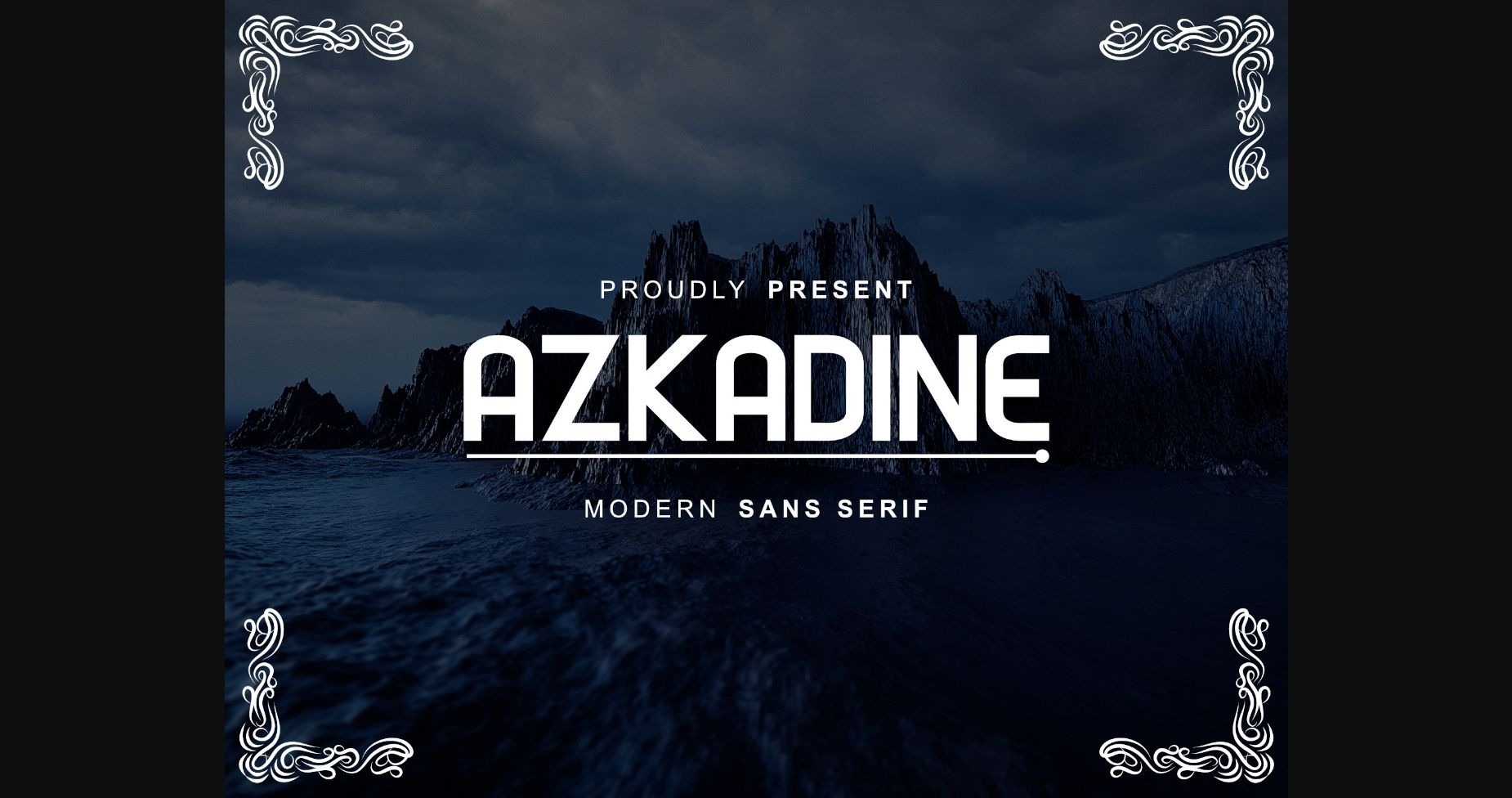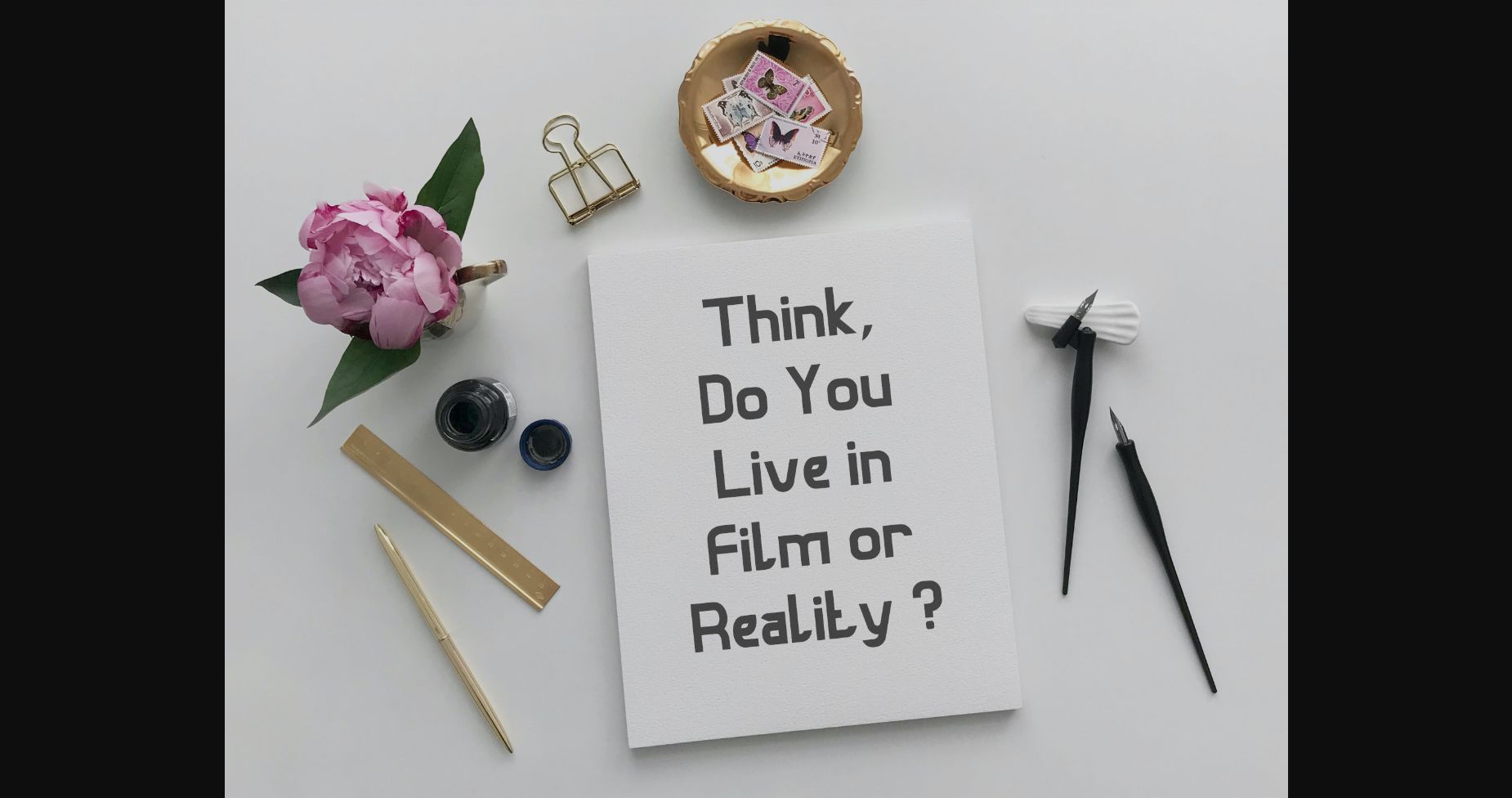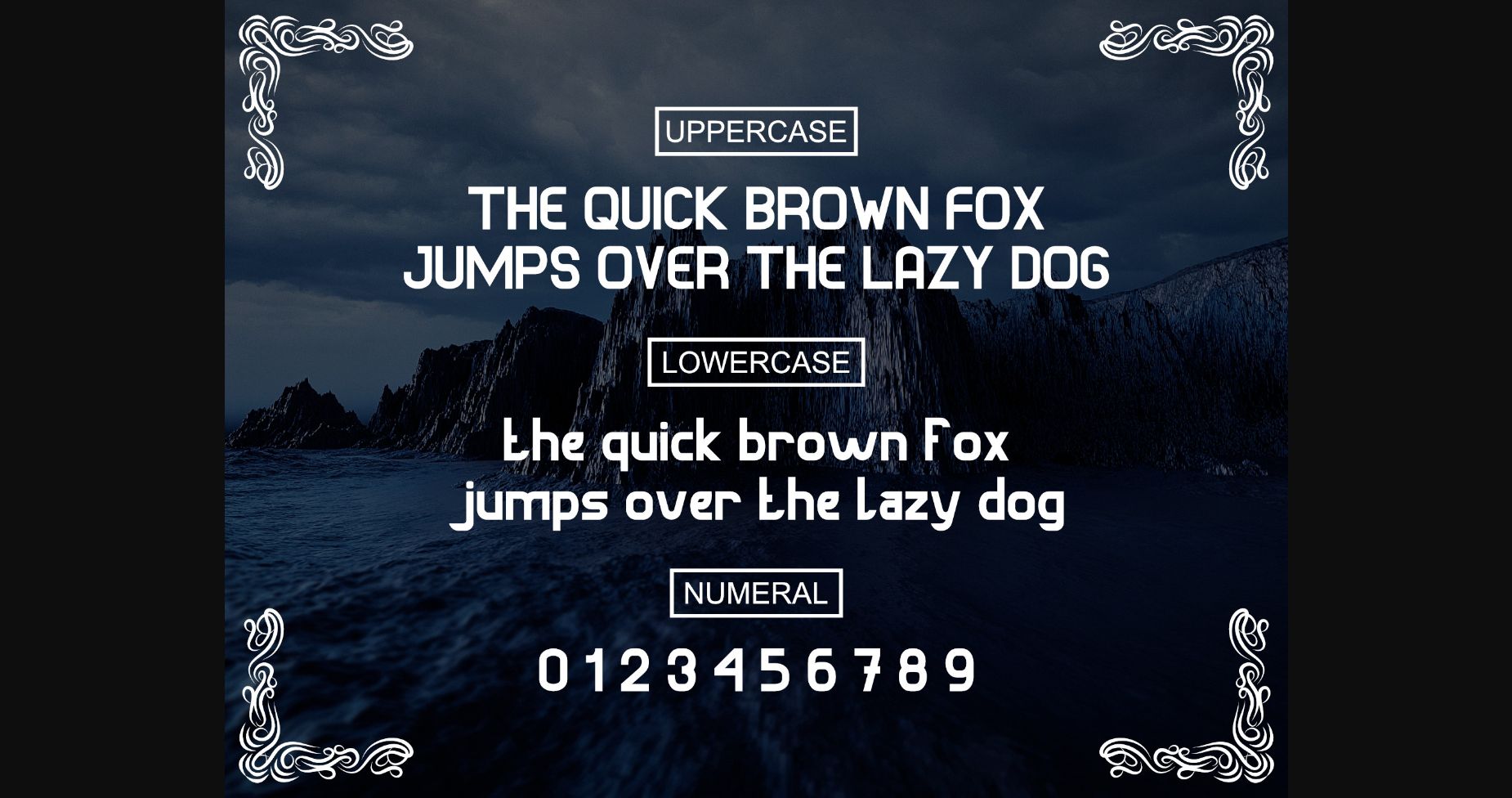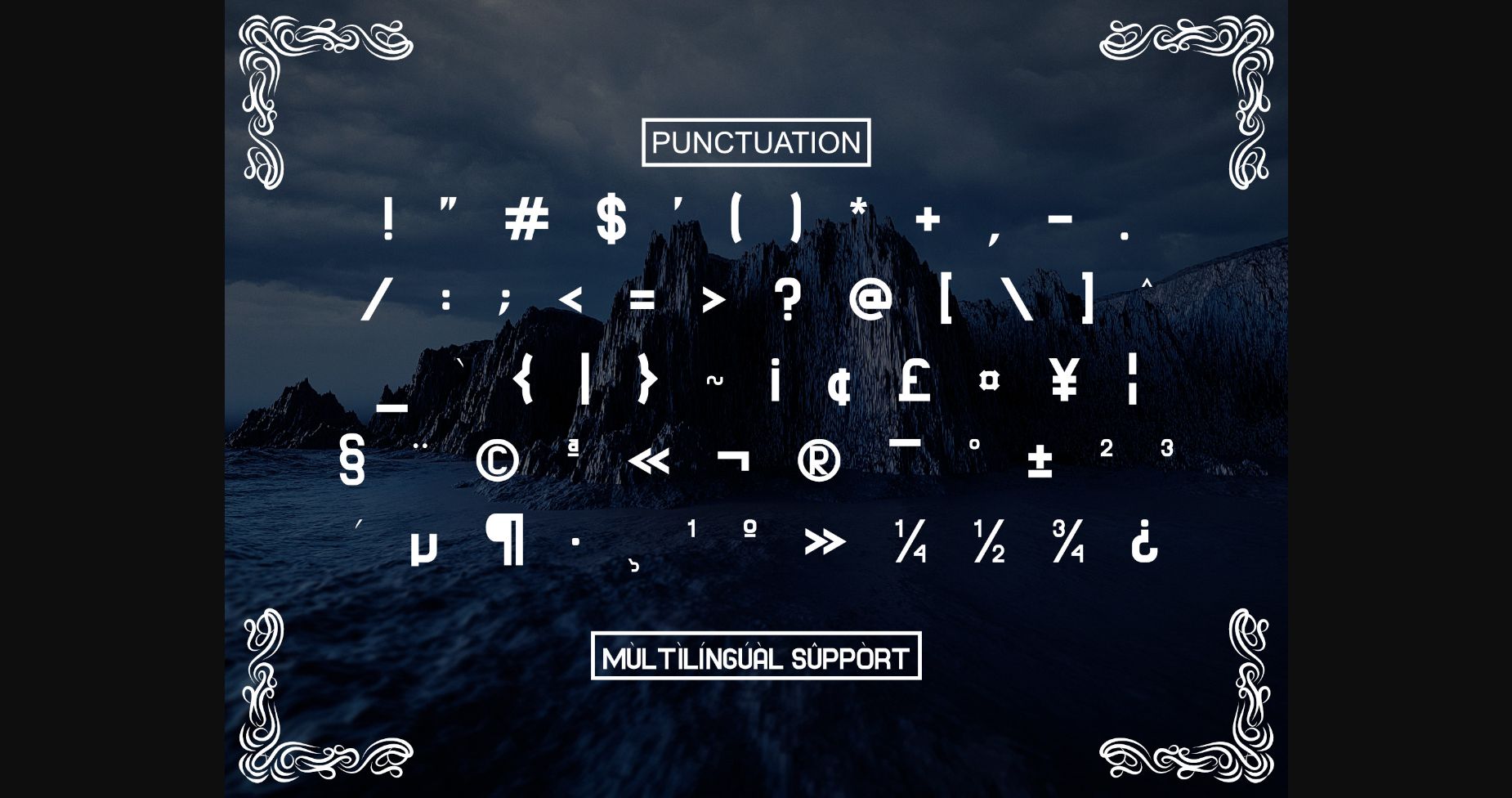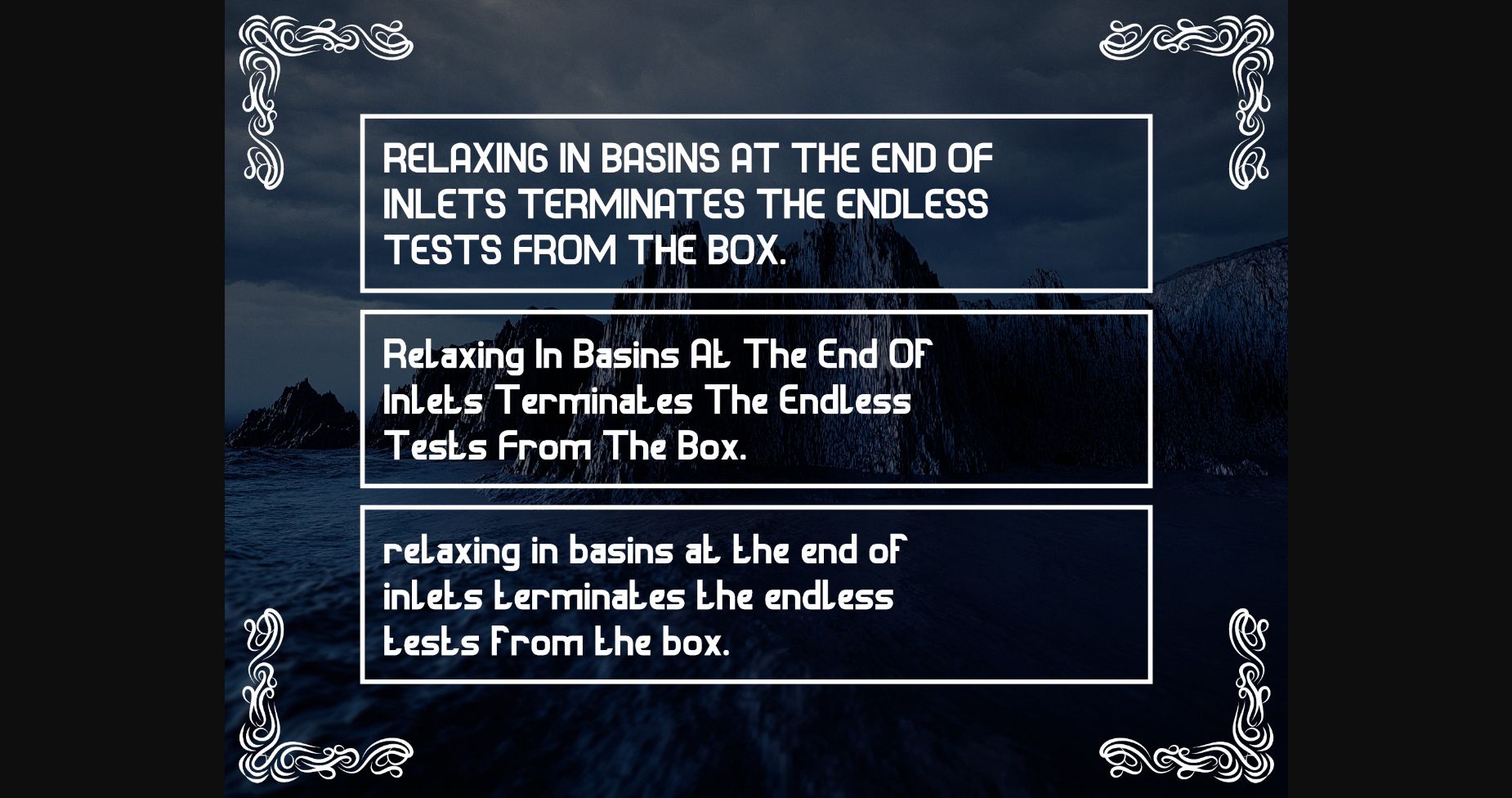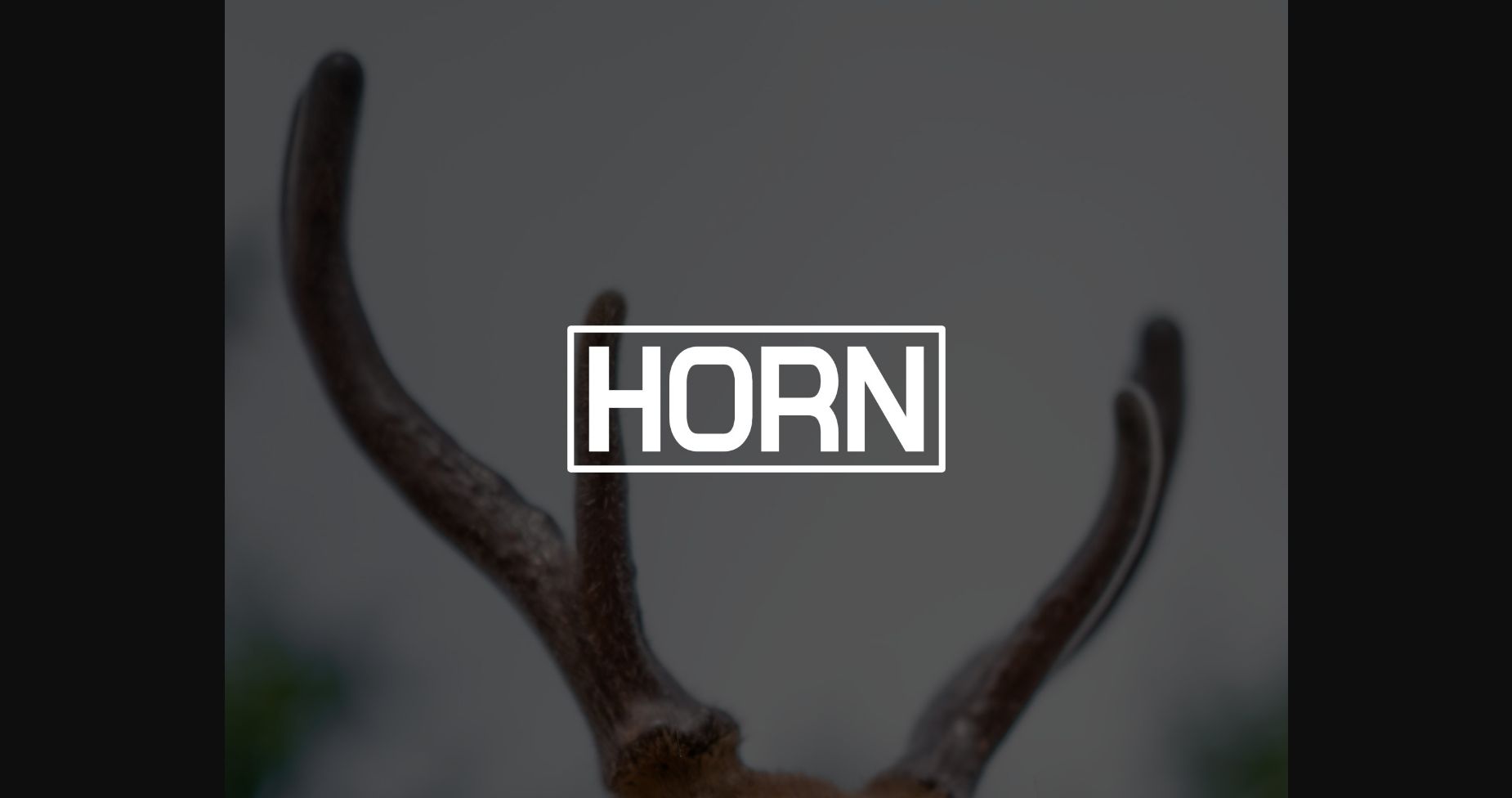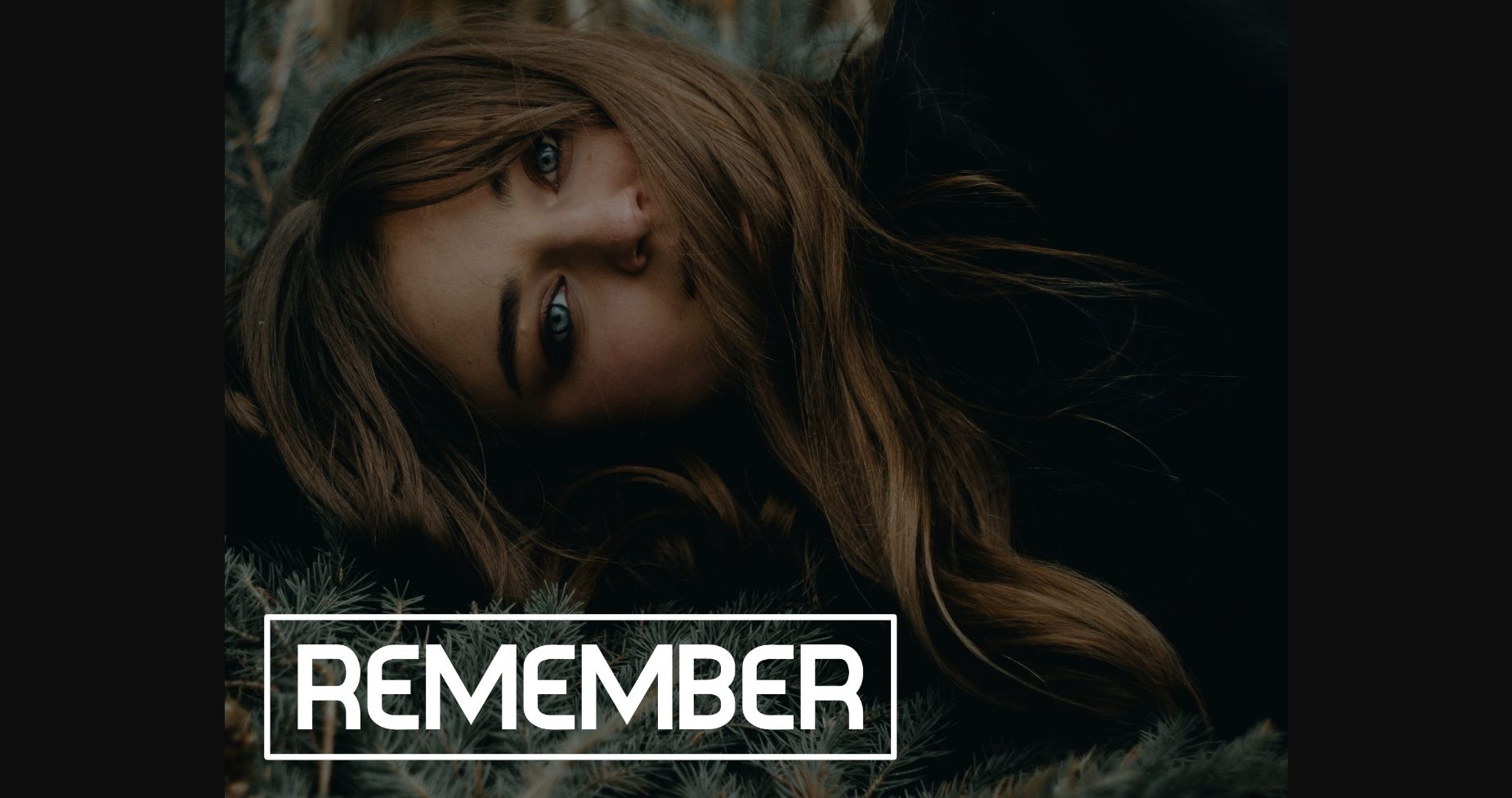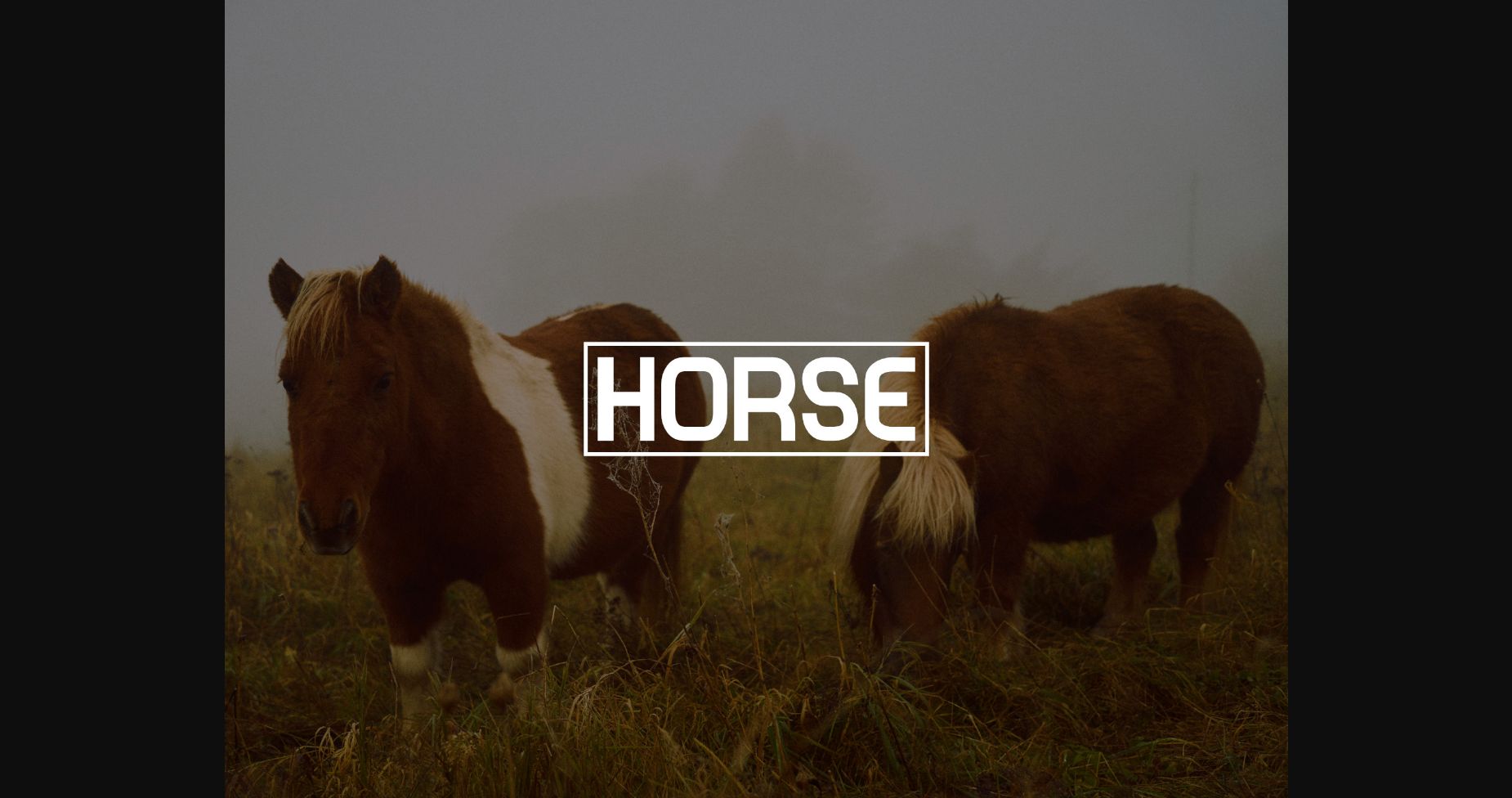
HomeSans Serif FontsAzkadine Font Sans Serif Fonts Azkadine Font FacebookXPinterestWhatsApp 1 of 11 ... Azkadine Font Poster 2... Azkadine Font Poster 3... Azkadine Font Poster 4... Azkadine Font Poster 5... Azkadine Font Poster 6... Azkadine Font Poster 7... Azkadine Font Poster 8... Azkadine Font Poster 9... Azkadine Font Poster 10... Azkadine Font Poster 11... About Azkadine Font Azkadine is a timeless sans serif font. With smooth and clean lines, and just a touch of contrast, Azkadine works beautifully for logos, branding, and web headings. DOWNLOAD NOW People also explored Dry Hop Beer Cap Duo Moon Font Summer Flower Font Dottaaz Font Darnisha Font Zelium Font Meilalya Font Acoustic Font Santomyse Eridupes Font 285 0 TagsAzkadine Font Previous articleMunect FontNext articleRiana Florin Font LEAVE A REPLY Cancel reply Comment: Please enter your comment! Name:* Please enter your name here Email:* You have entered an incorrect email address! Please enter your email address here Website: Save my name, email, and website in this browser for the next time I comment. Personal Use Free Earwig Factory Personal Use Free Read more about this font Beattingvile Personal Use Free Read more about this font Consequences Personal Use Free Read more about this font BD AsciiMax Personal Use Free Read more about this font BLOG How to Install and Use Fonts on Windows, macOS, and Web Projects How to Install and Use Fonts on Windows, macOS, and Web Projects Fonts are a crucial part of design and branding. Whether you’re designing a... Transform Your Website: Elevate Your Typography with 7 Best Web Font Generators To increase your work productivity, choose the most readable fonts. Free Fonts Risk: Why Free Fonts Can Be Dangerous for Designers